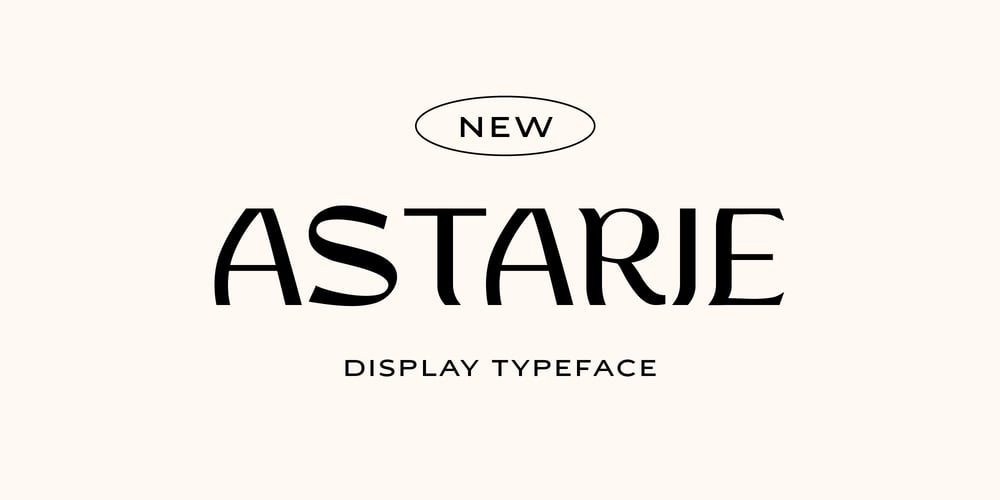
Astarie Font Family was designed by abdul artega and published by Yukita Creative. Astarie contains 1 styles and family package options. Astarie is a modern sans with a trendy and not stiff style that will make your poster, cover, or logo more stunning and stand out!This font supports Multi-Language.This font will go well with logos, headlines, titles, and minimal layouts.